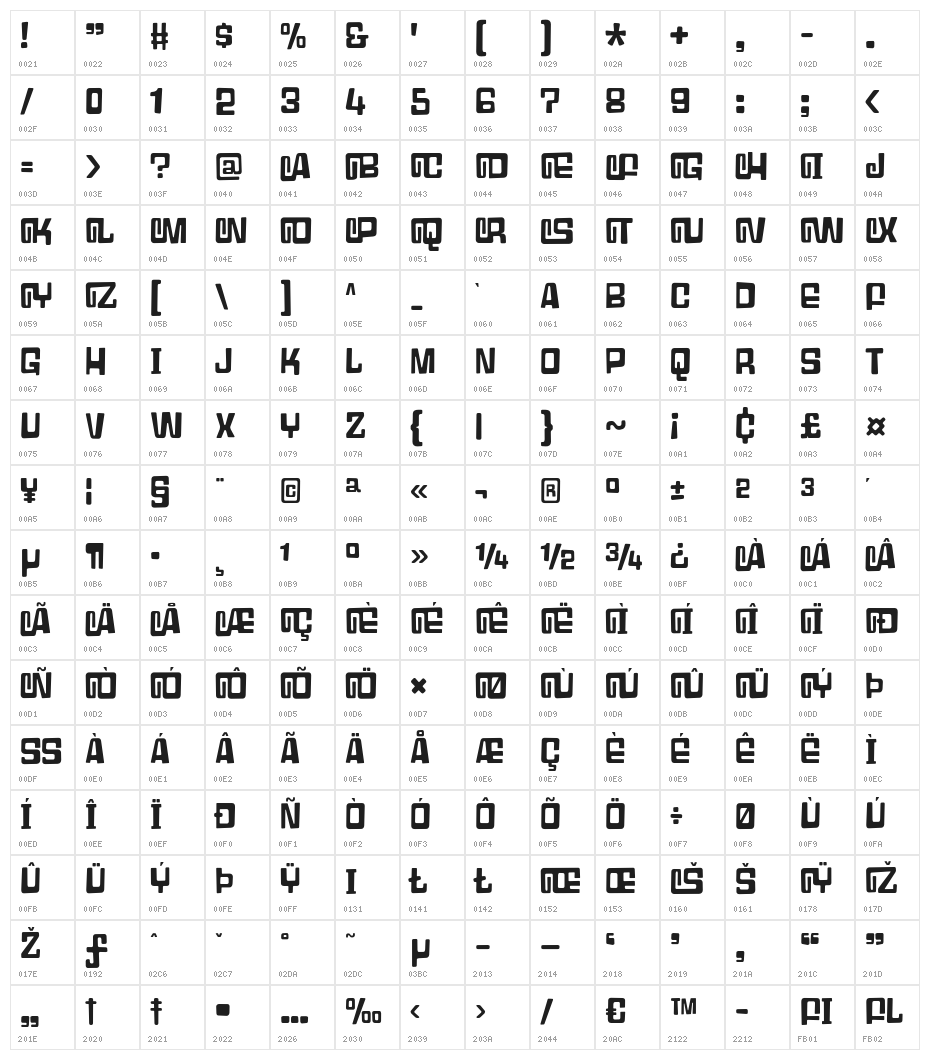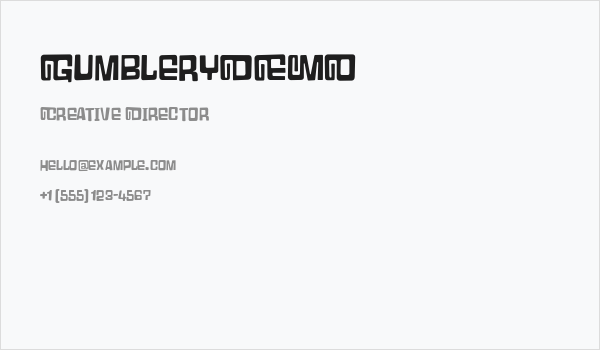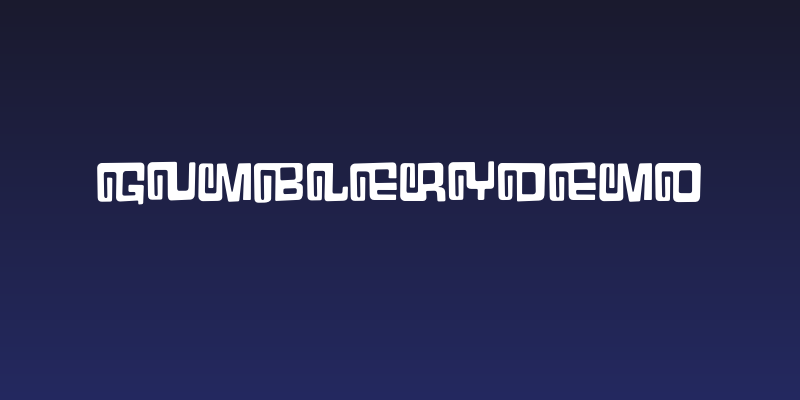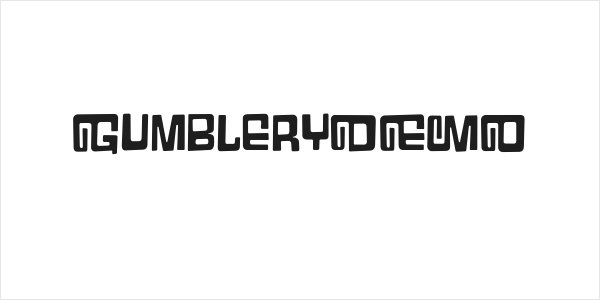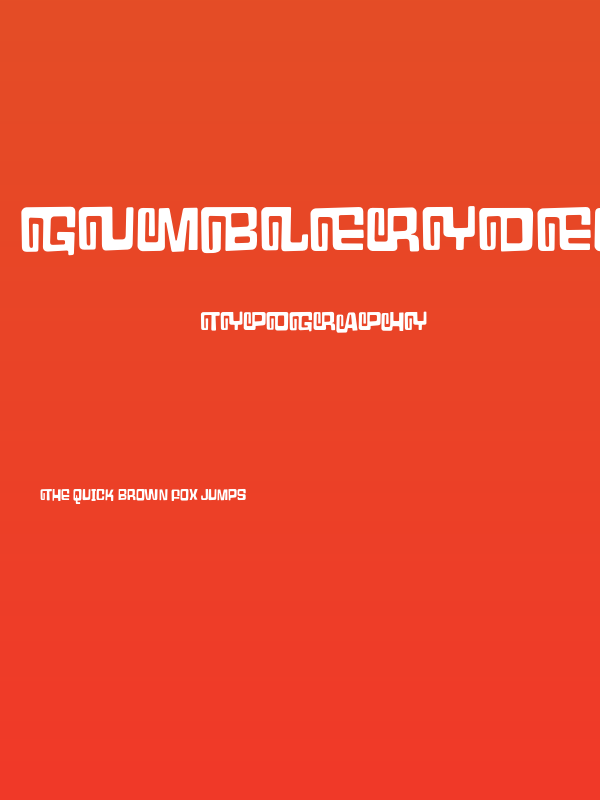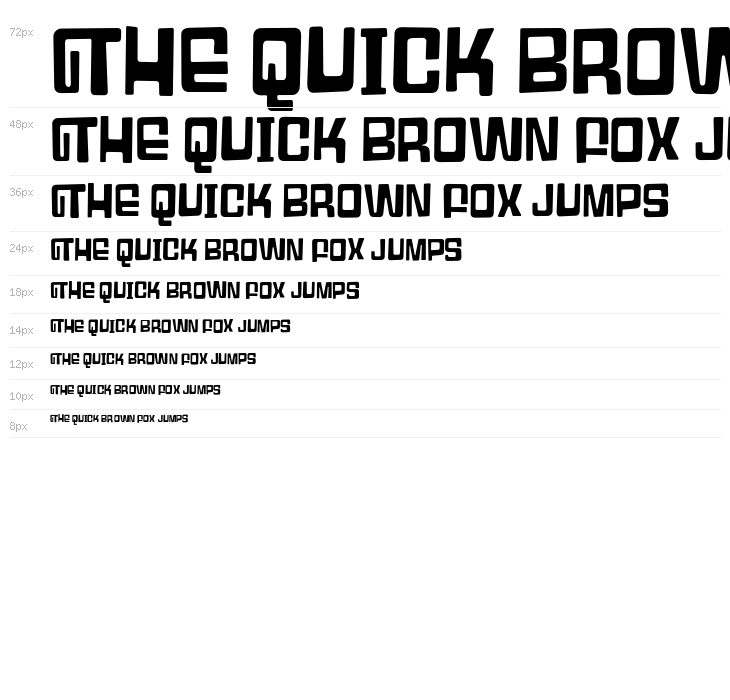
GumbleryDEMO Font
GumbleryDEMO Description
This font features a bold and playful design with a distinct geometric structure. The characters are wide and rounded, giving a friendly and approachable appearance. The uppercase letters have a consistent height, while the lowercase letters maintain a similar width, creating a harmonious balance. The numbers are equally bold, ensuring readability and consistency across different uses. Special characters are designed to match the overall style, making them suitable for various applications. The font's unique style makes it stand out, perfect for projects that require a touch of creativity and modern flair.